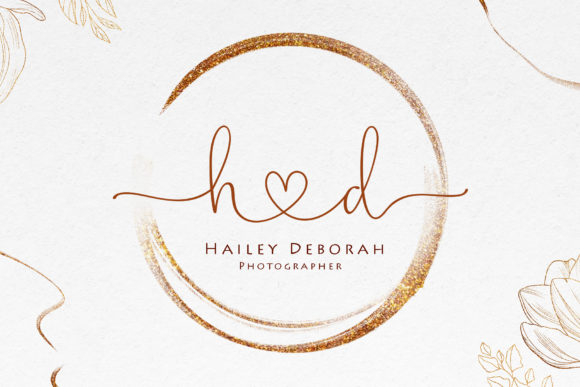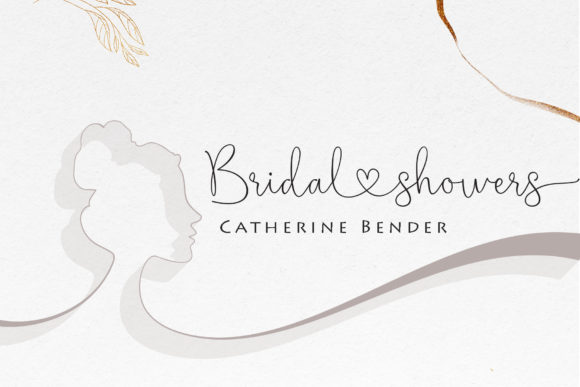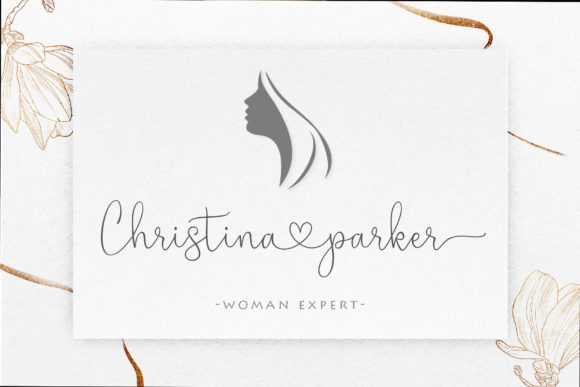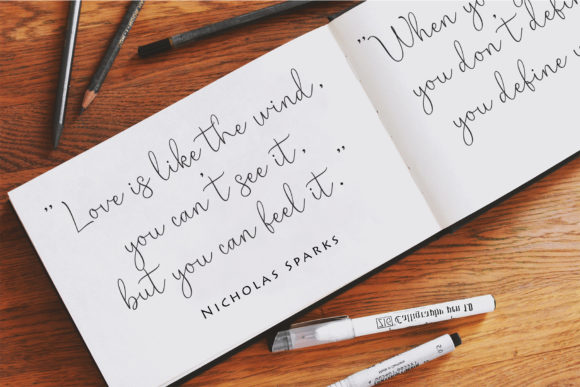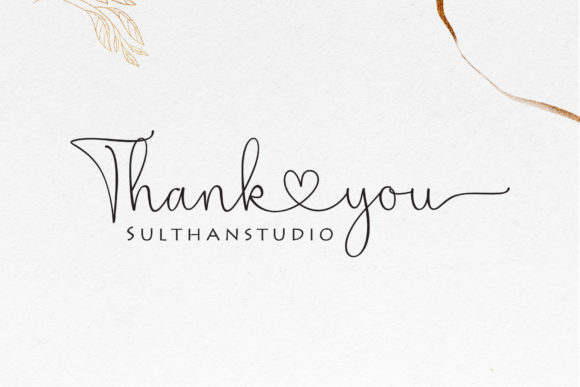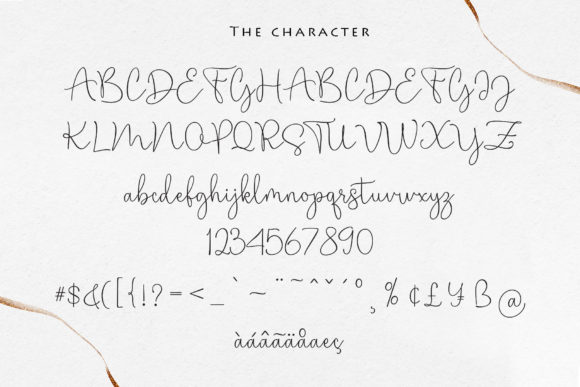
The Perfect Script: Unlocking the Beauty of Bella Bellia Font
As a designer, there’s nothing quite like the thrill of bringing a new project to life. It’s that moment when the blank page or screen transforms into a vibrant, cohesive vision – and for me, it often starts with the perfect font. I recall a recent project where I stumbled upon a script font that captured the essence of elegance and sophistication: the Bella Bellia Font. Its refined, modern look instantly spoke to me, and I knew I had to share it with the design community.
Bella Bellia Font is a versatile script font that’s perfect for logos, branding, invitations, stationery, and more. Its PUA encoding makes it easy to access all the glyphs and swashes, giving designers the freedom to get creative. Whether you’re a seasoned pro or just starting out, Bella Bellia Font is an invaluable addition to your design toolkit, offering a level of sophistication and refinement that’s hard to find in other fonts.
- Unique Characteristics: Bella Bellia Font features a unique blend of elegance and whimsy, with intricate details and flourishes that add a touch of sophistication to any design.
Bella Bellia Font Review
At first glance, the Bella Bellia font has a unique, elegant feel to it ✨. The font’s curves and rounded edges give off a sense of sophistication, making it perfect for high-end branding or luxury product designs. The font also comes in a variety of weights, from light to bold, allowing for a range of styling options.
- The font’s cursive feel works particularly well for handwritten-style headings or quotes ✨.
- The Bella Bellia font is highly versatile and can be used for a wide range of design projects, from fashion to cosmetics.
- The font’s high-quality vector files ensure crisp, clean lines and smooth transitions ✨.
However, there are a few limitations to the Bella Bellia font ⚠️. Firstly, the font’s delicate curves can make it challenging to read at smaller font sizes, particularly in digital formats. Additionally, the font’s unique style may not be suitable for all design projects, and some users may find it too ornate or over-the-top.
Overall, the Bella Bellia font is a solid choice for designers looking for a high-end, elegant font option. While it may have some limitations, its unique style and versatility make it a valuable addition to any design toolkit.
Tips for Getting the Most Out of the Bella Bellia Font
Use the Bella Bellia Font for elegant and sophisticated designs, such as wedding invitations, luxury branding, and high-end marketing materials.
Experiment with different font sizes and styles to create a visually appealing design.
Combine the Bella Bellia Font with other elegant fonts to create a unique and eye-catching design.
The Bella Bellia Font is ideal for:
Luxury branding and marketing materials
High-end fashion and beauty designs